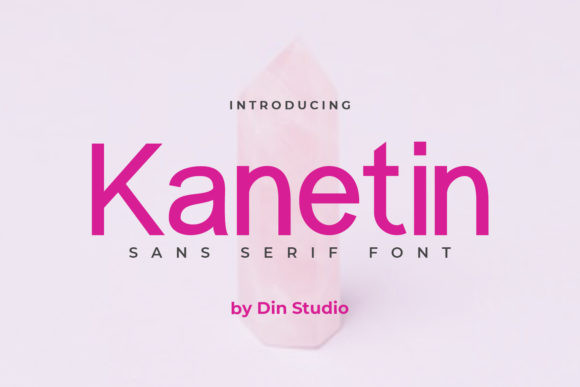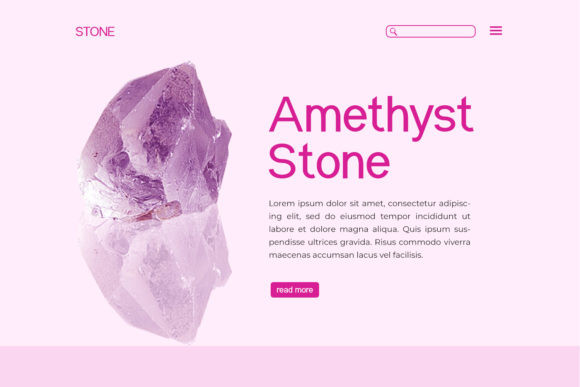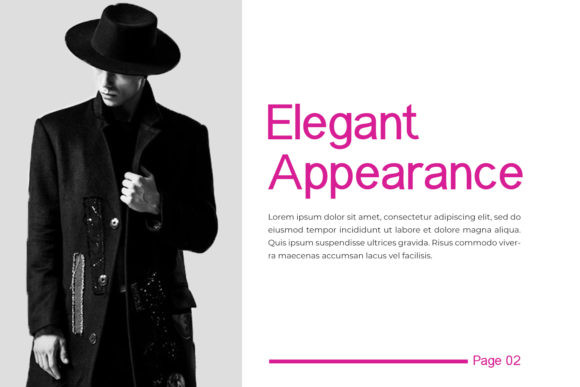
Kanetin Font
Kanetin is an elegant sans serif font. Suitable to a wide variety of designs due to its neat and simple style, Kanetin has the potential to become your favorite go-to font, no matter the occasion!